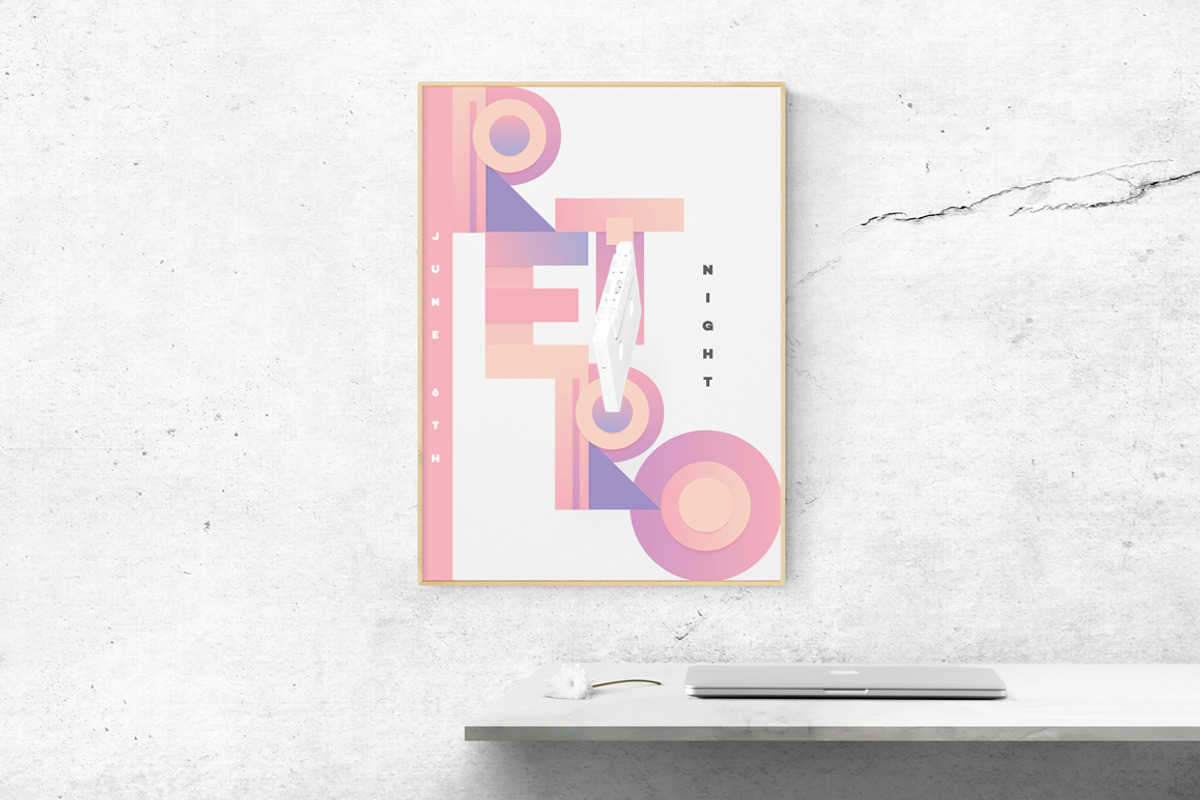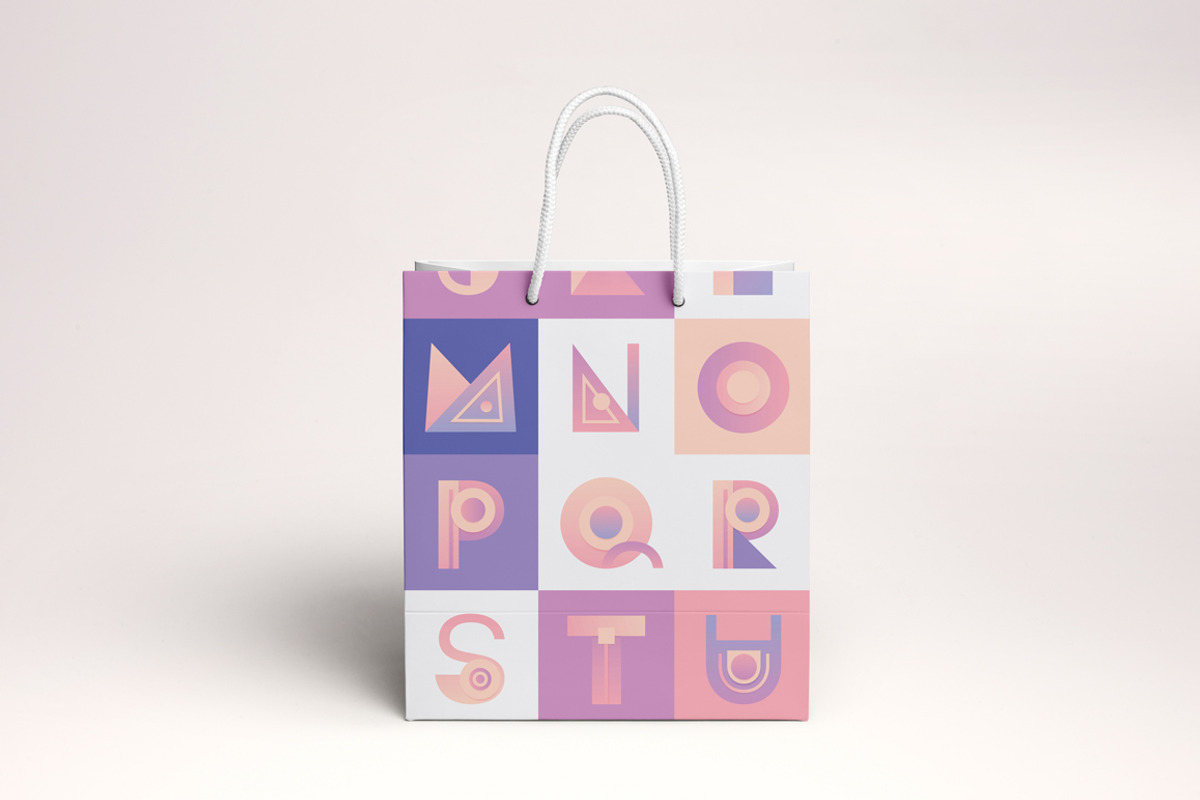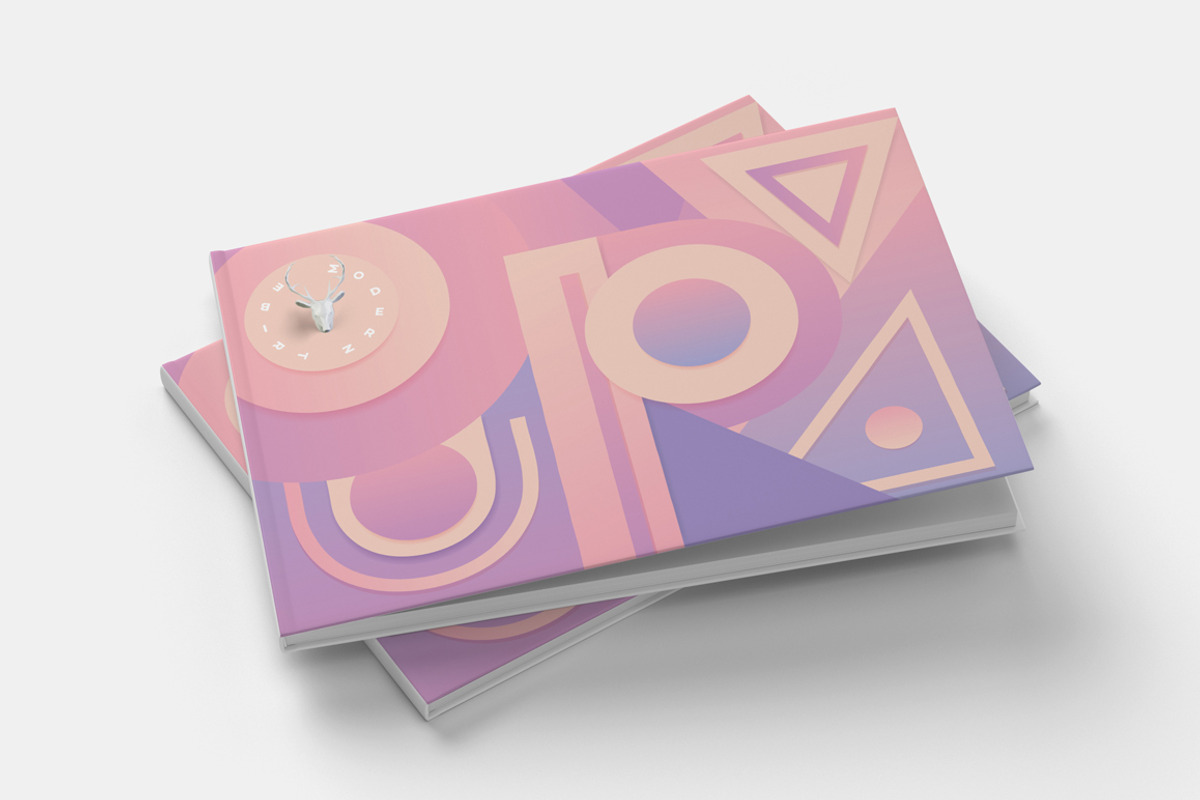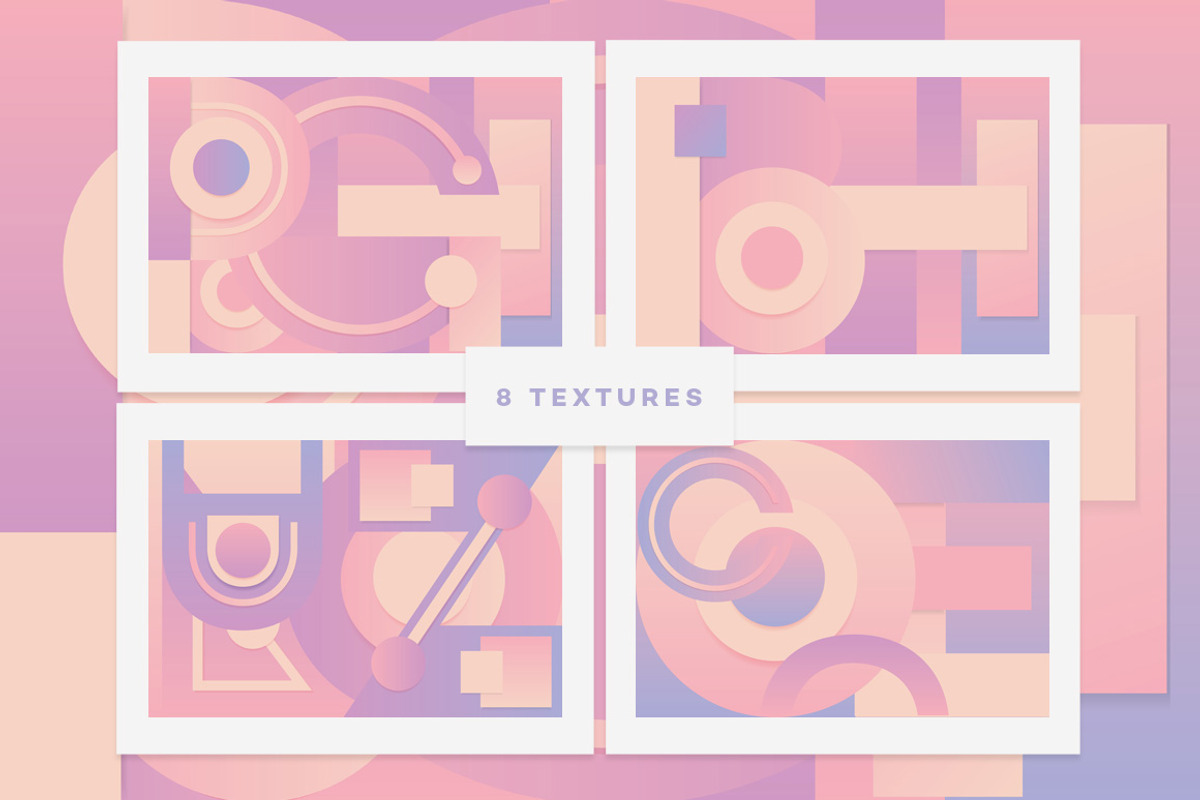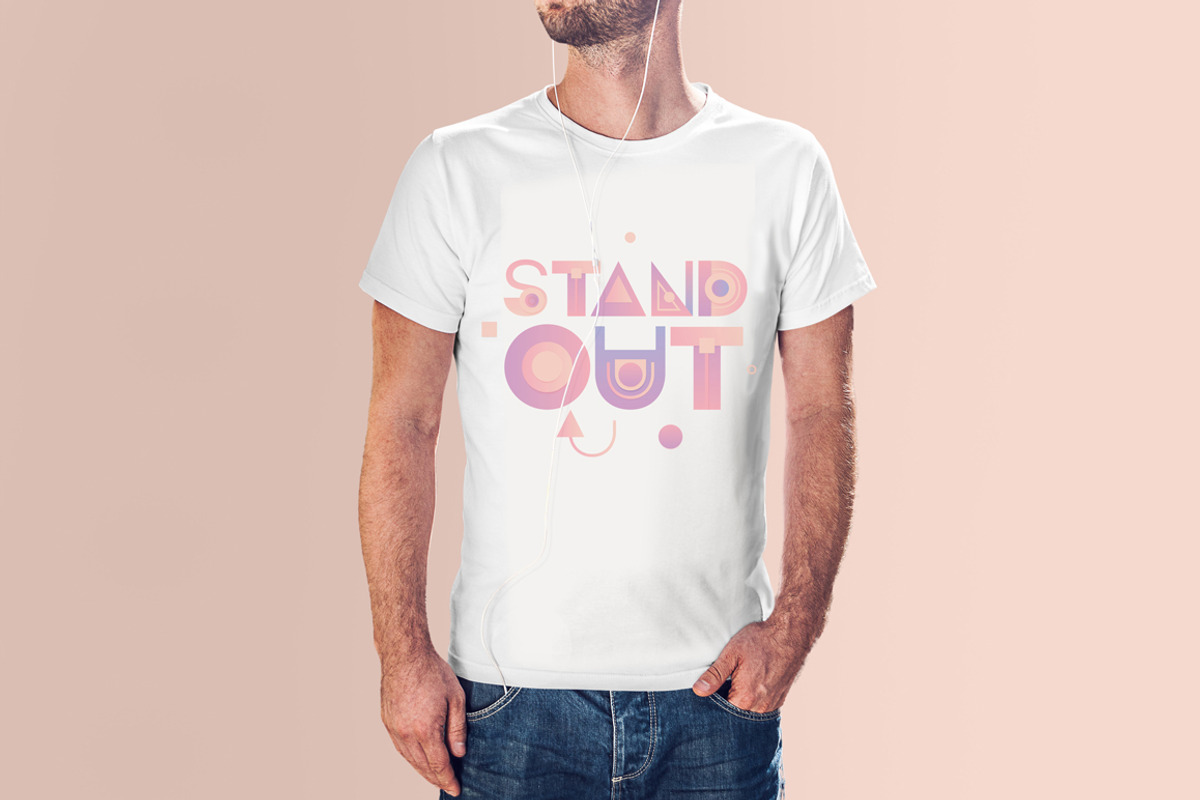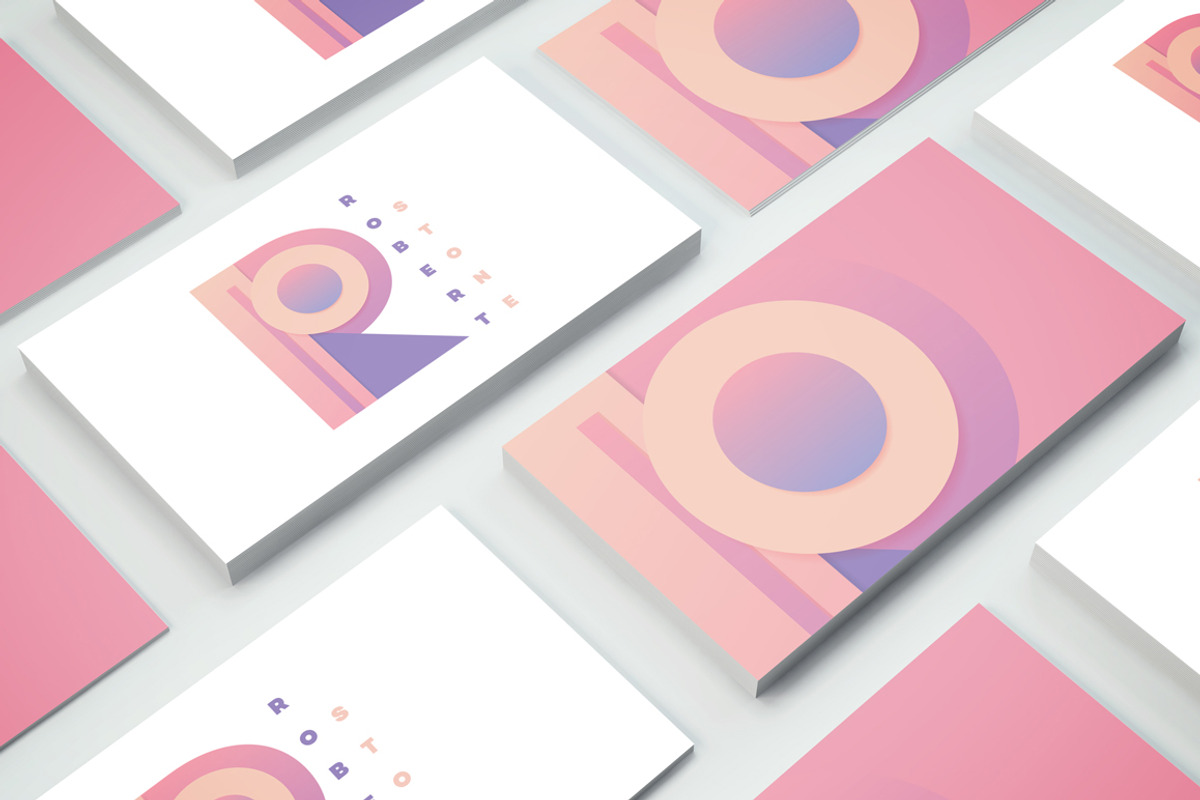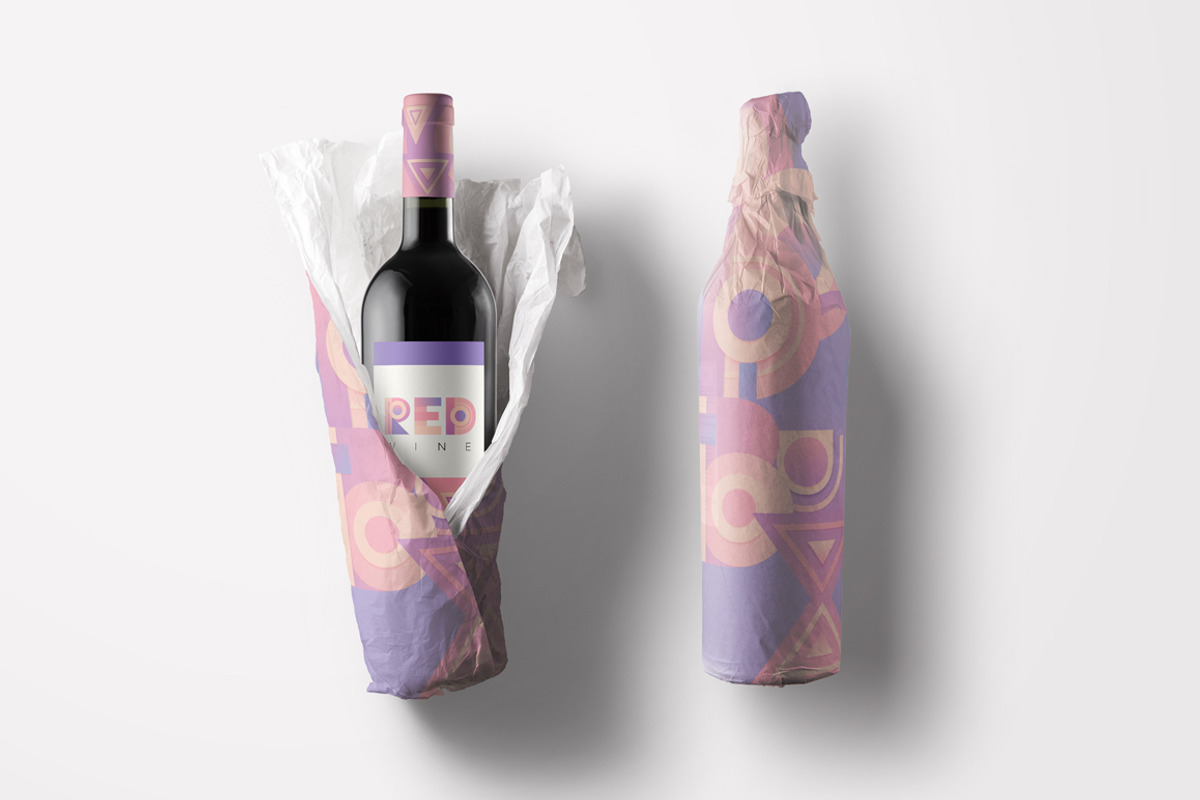
Modern Tribe- Vector Font and Patterns
Modern Tribe- Vector Font and Patterns by Polar Vectors is a font selected for branding, posters, packaging, typography.
Modern Tribe- Vector Font and Patterns by Polar Vectors fits naturally into Branding, posters, packaging, typography.